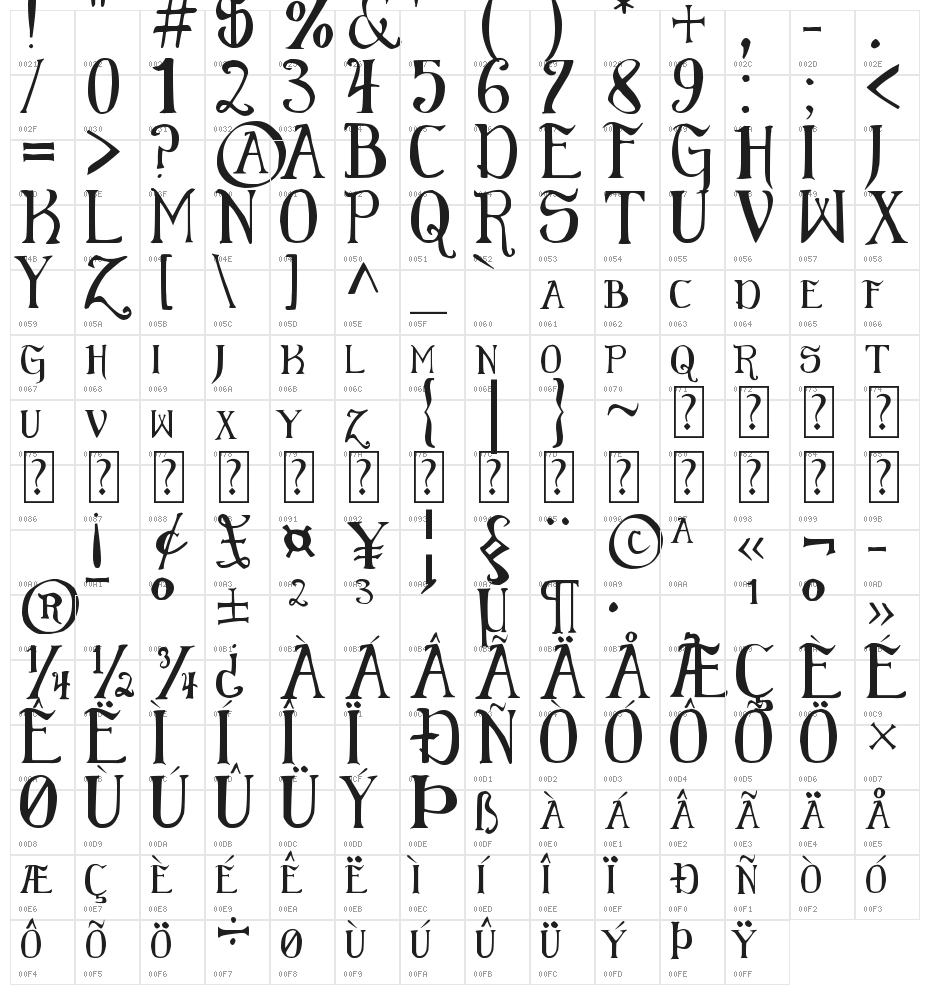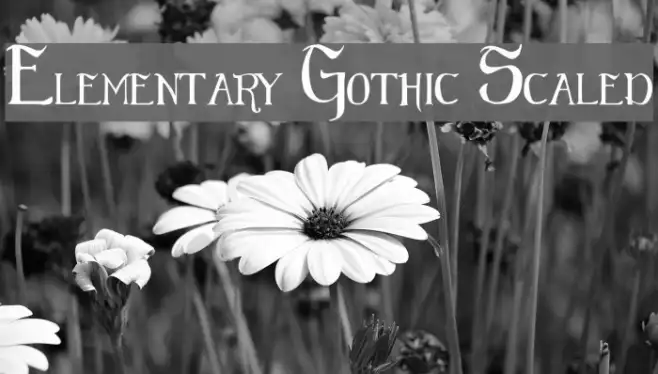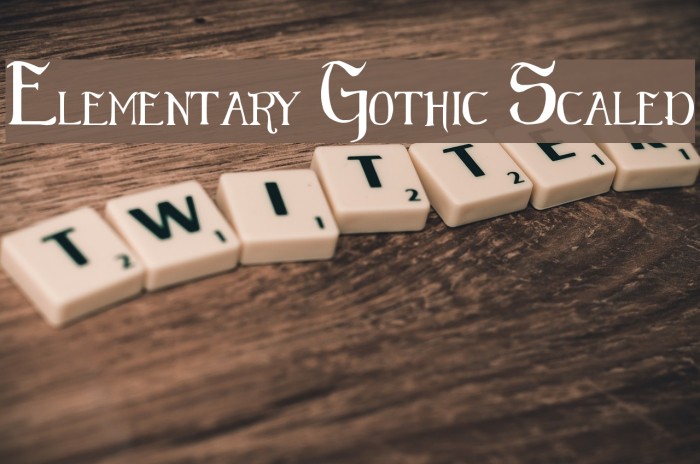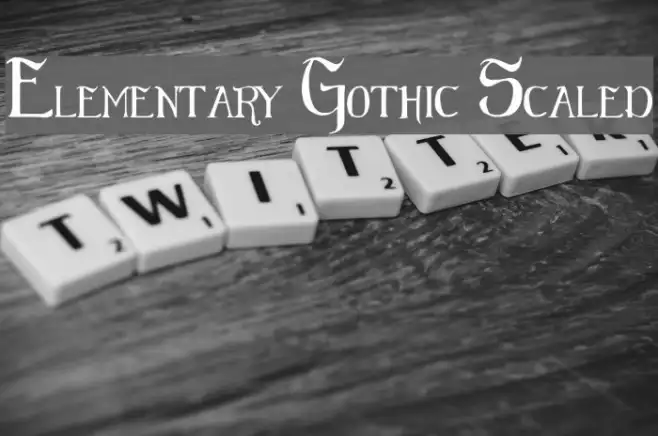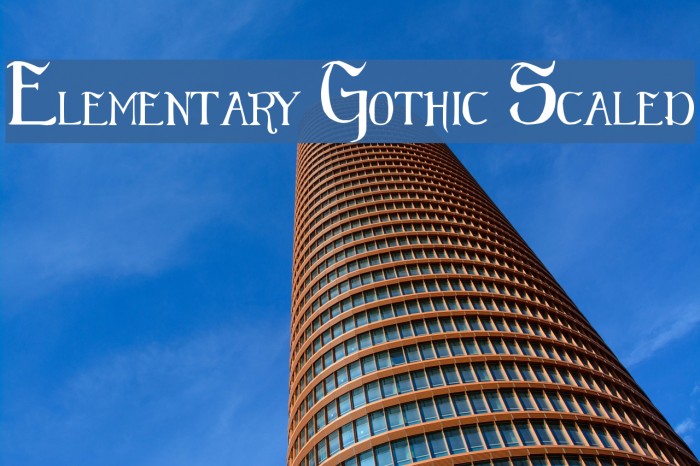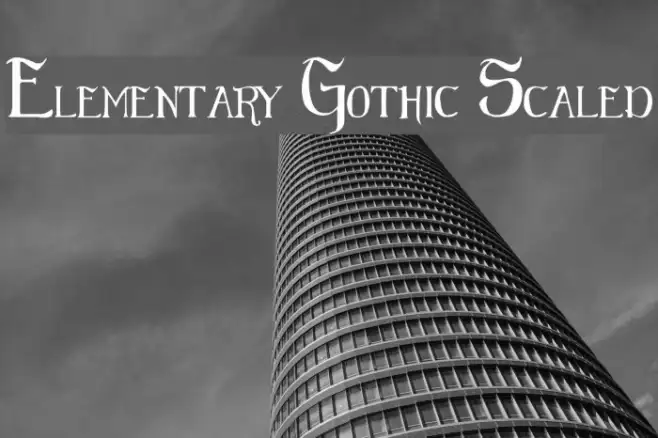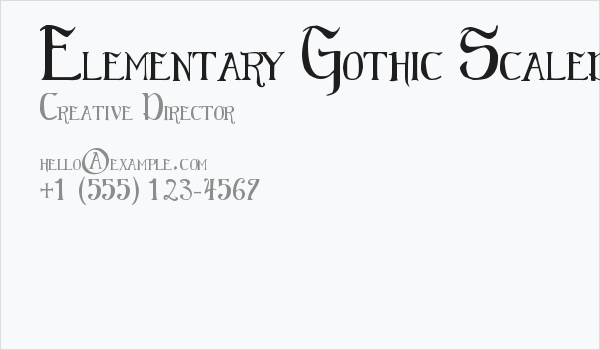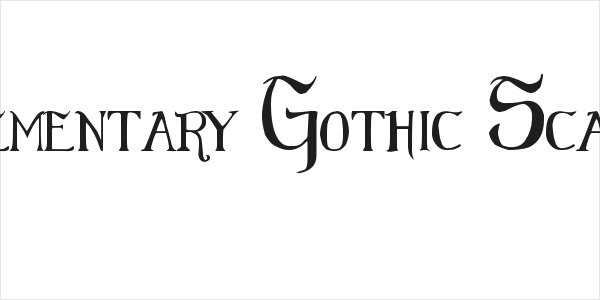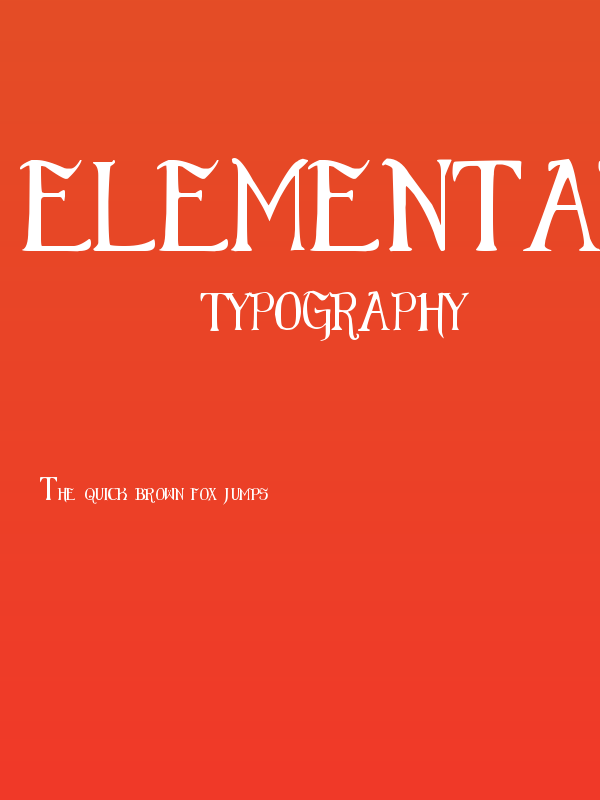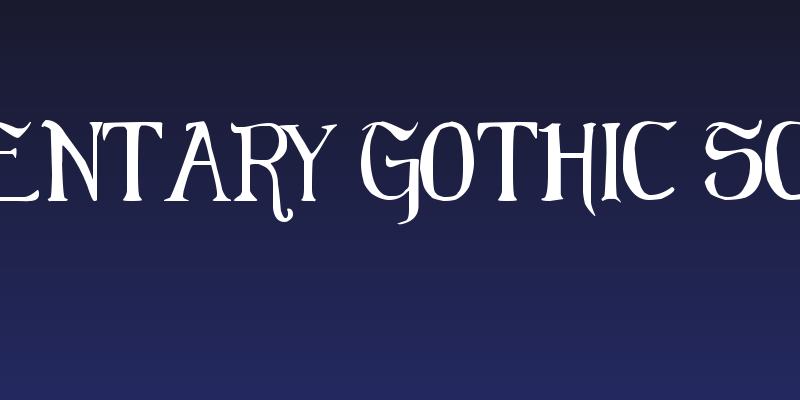
Elementary Gothic Scaled Font
Elementary Gothic Scaled Description
This font features a distinctive gothic style with sharp, angular lines and dramatic curves. The uppercase letters are bold and commanding, with unique flourishes that give them a medieval appearance. The lowercase letters maintain the gothic aesthetic, with consistent stroke widths and intricate details. Numbers are equally stylized, offering a cohesive look across all characters. Special characters are designed to match the overall theme, making this font ideal for projects that require a historical or fantasy feel. The font's intricate design and bold presence make it suitable for decorative purposes.
| Proposed Projects | Ideal for fantasy-themed designs, historical posters, book covers, and decorative signage. |